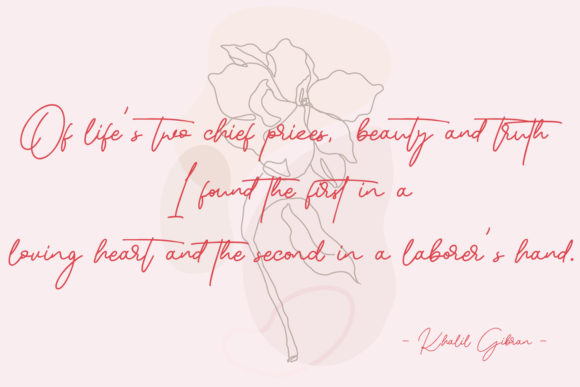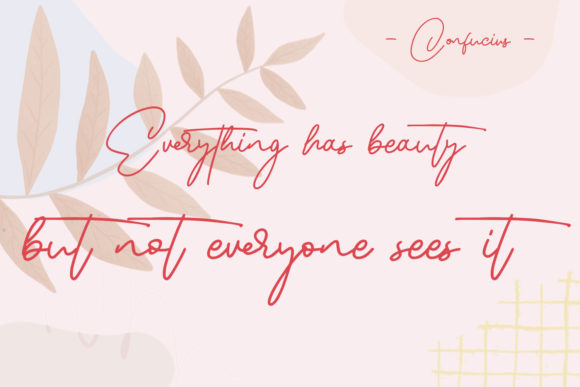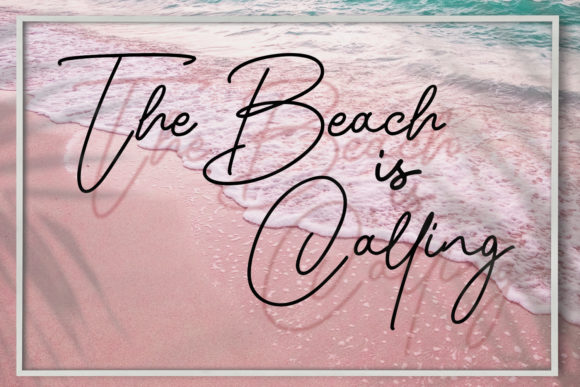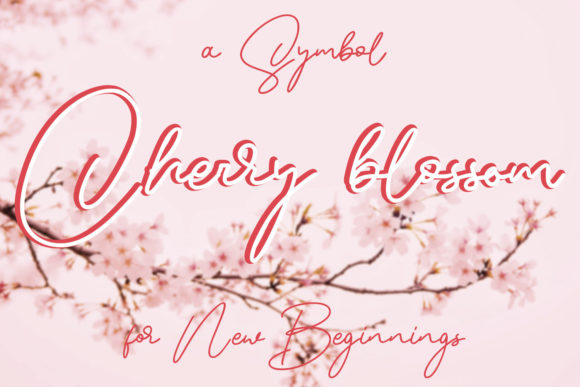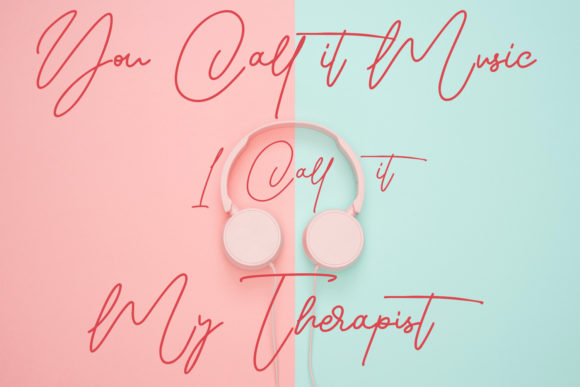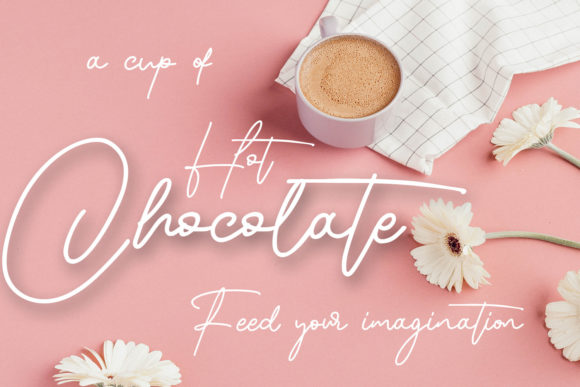
Introducing Blastiks Signature Font: Elevate Your Designs with Expressive Flair
Are you tired of using the same old fonts in your designs? Look no further! Blastiks Signature Font is here to take your creative projects to the next level. This stunning script font is designed to add a touch of elegance and playfulness to any design, making it perfect for designers, crafters, and DIY enthusiasts.
What Makes Blastiks Signature Font Special?
Blastiks Signature Font is an expressive and slim lettered script font that boasts a unique set of features. Its slanted mono-line strokes give it a distinctive, hand-drawn feel that’s both modern and sophisticated. The font also includes a range of fun characters and ligatures, allowing you to add a personal touch to your designs.
Key Features of Blastiks Signature Font
- Expressive and slim lettered script font: Perfect for adding a touch of elegance to your designs
- Slanted mono-line strokes: Give your designs a unique, hand-drawn feel
- Fun characters and ligatures: Add a personal touch to your designs and make them stand out
- Logos and branding: Create a unique and memorable logo that stands out from the crowd
- Social media graphics: Add a touch of personality to your social media posts and stories
- Invitations and stationery: Create beautiful, handmade-style invitations and stationery
- Web design: Use Blastiks Signature Font to add a touch of elegance to your website
Tips and Tricks for Getting the Most Out of Blastiks Signature Font
To get the most out of Blastiks Signature Font, try experimenting with different font sizes, colors, and styles. You can also combine Blastiks Signature Font with other fonts to create a unique and eye-catching design. Here are a few tips to keep in mind:
- Use Blastiks Signature Font as a headline font: Its expressive and slim lettered design makes it perfect for headlines and titles
- Experiment with different colors: Try using Blastiks Signature Font in different colors to add depth and interest to your designs
- Combine with other fonts: Combine Blastiks Signature Font with other fonts to create a unique and eye-catching design
Why Designers and Crafters Love Blastiks Signature Font
Blastiks Signature Font has quickly become a favorite among designers and crafters. Its unique and expressive design makes it perfect for adding a personal touch to any project. Here are a few reasons why designers and crafters love Blastiks Signature Font:
- Unique and expressive design: Blastiks Signature Font is unlike any other font on the market
- Versatile: Use Blastiks Signature Font in a variety of projects, from logos and branding to social media graphics and web design
Blastiks Signature Font is a game-changer for designers and crafters. Its unique and expressive design, combined with its ease of use and versatility, make it a must-have font for any creative project. Whether you’re looking to add a touch of elegance to your designs or simply want to try something new, Blastiks Signature Font is the perfect choice.